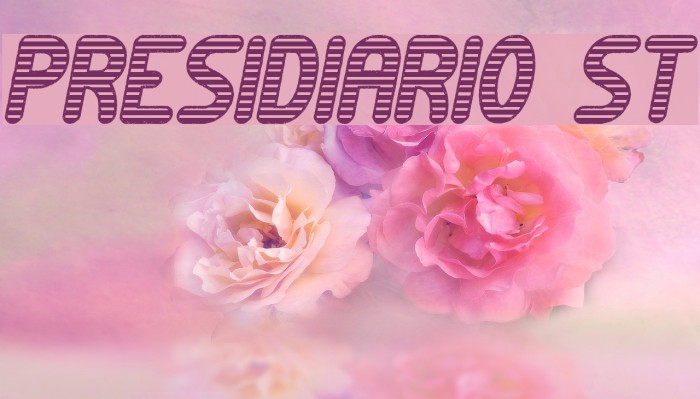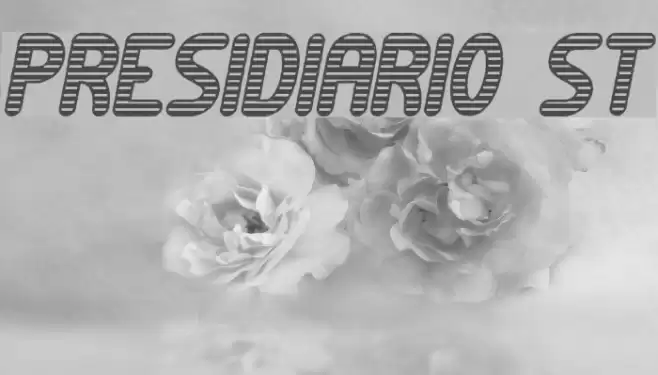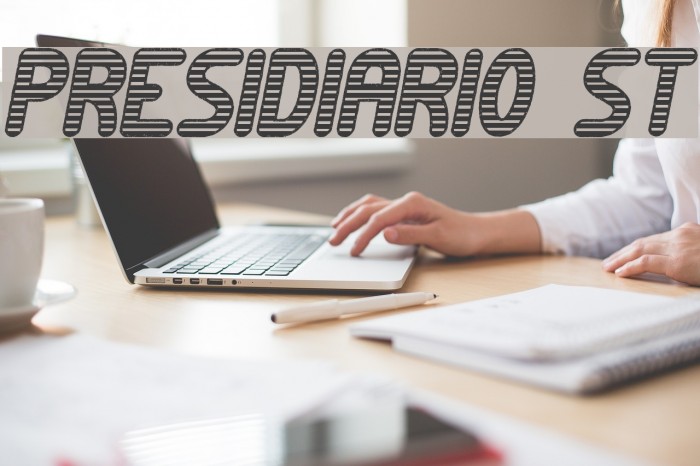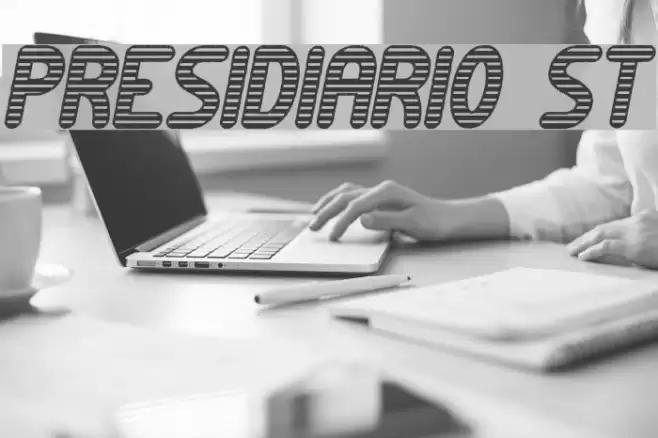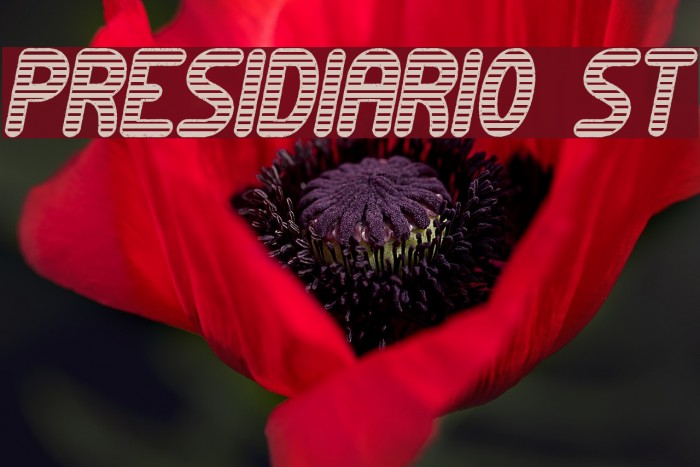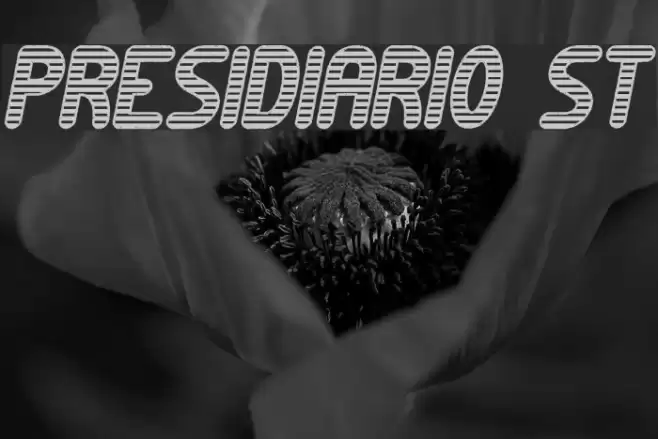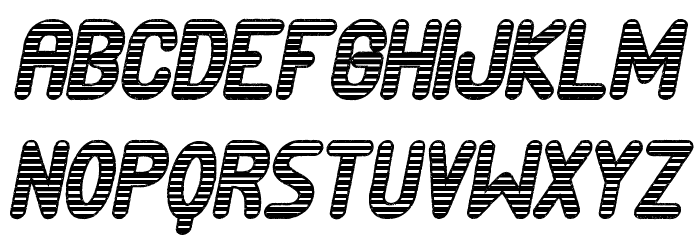
Presidiario St Font
Presidiario St Description
This font features a bold, decorative style with a unique striped pattern running horizontally through each character. The uppercase letters are designed with rounded edges and a consistent thickness, creating a cohesive and visually striking appearance. The font's playful yet structured design makes it suitable for eye-catching displays. The spacing between characters is tight, enhancing its compact and impactful look. The font's distinct style is ideal for projects that require a bold statement, such as posters, headlines, or branding materials.
| Proposed Projects | Ideal for posters, headlines, branding materials, and any project needing a bold, eye-catching font. |